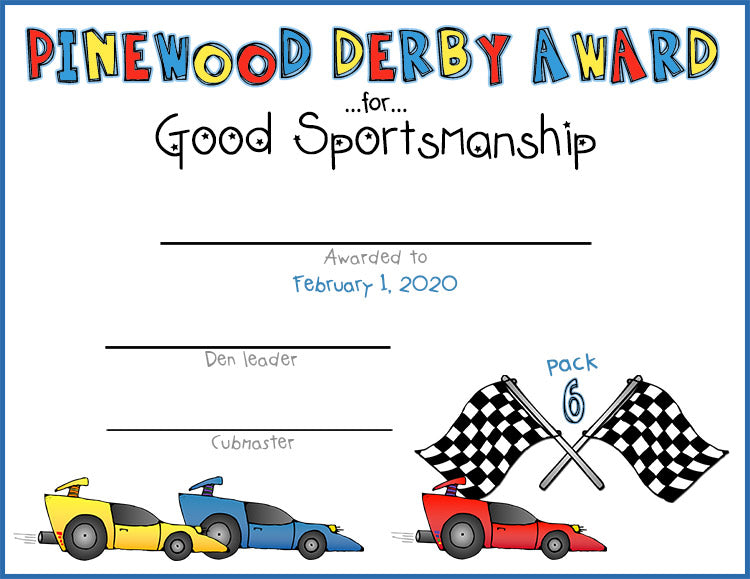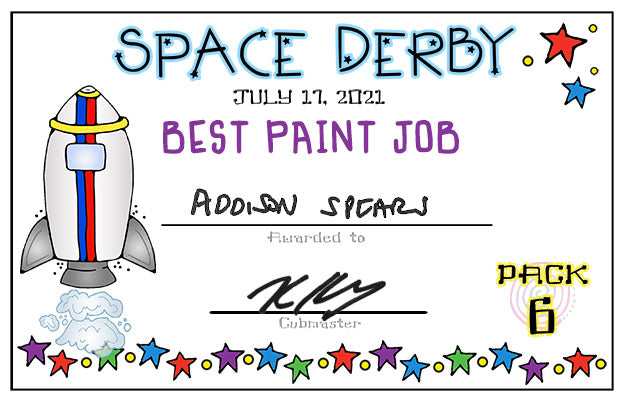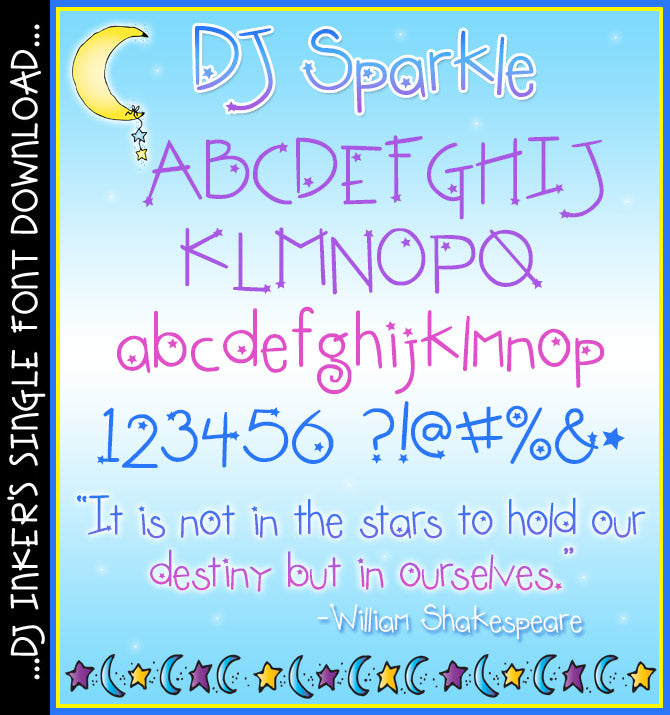
Give your projects that special DJ Sparkle with this dazzling
font! This super-star font is excellent for parties & sleepovers, movie
night, student rewards, star students, award certificates, science class
& more! Perfect for text in any size or color... but especially good
for bright, exciting headlines.